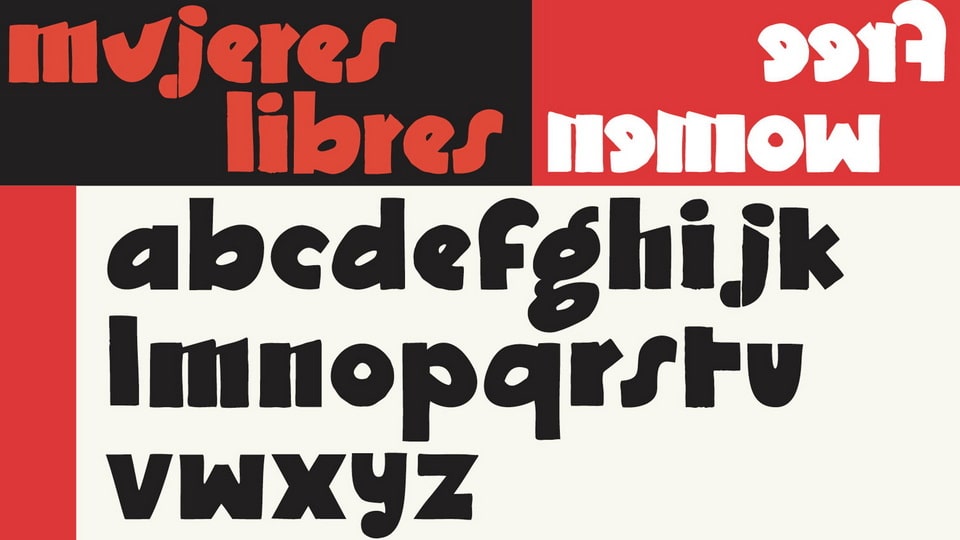
Mujeres Libres is a font created from letterforms found in publications associated with three Spanish Civil War era publications: Mujeres Libres (associated with the anarcho-feminist organization Mujeres Libres, produced in Barcelona).
The adapted font here, titled ‘Mujeres Libres’ was the title font used on at least 9 covers of their magazine of the same name. This is an all lower case font with solid and humble aspects.